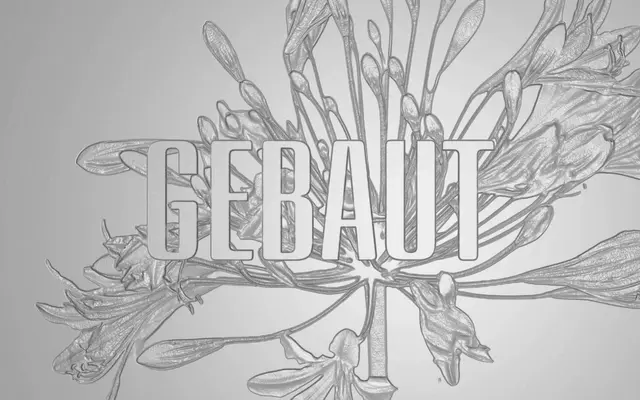
BS Staahl
A semi-modular display typeface born from a school signage commission in western Switzerland, built around shared outer corner radii and sharp inner junctions.
Designed in collaboration with Enen Studio, BS Staahl follows a semi-modular construction logic drawn from the architecture of the school it was originally commissioned for. An optical size axis runs from Elementary through Middle to High, with contrast growing more pronounced at larger sizes, while stems remain assertive throughout and diagonals stay comparatively restrained. The family ships as a variable font and includes Regular, Italic and Backslanted cuts, performing at its best set large where its unicase quality and tight spacing create visual tension.
A modular, semi-geometric display typeface designed for signage and large-scale architectural use, with a constructed, brutalist character and optical size axis placing it firmly in the display category.